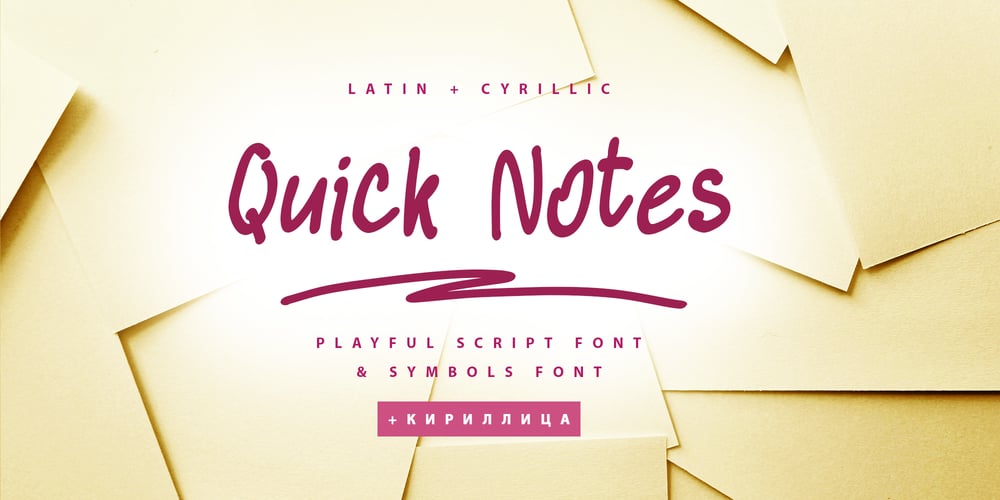
Quick Notes Cyrillic
Quick Notes Cyrillic font
Quick Notes Cyrillic Font Family was designed by Iryna Dviliuk and published by Ira Dvilyuk. Quick Notes Cyrillic contains 2 styles and family package options. Quick Notes playful script font Cyrillic is a pretty monoline font that will look gorgeous on all your designs, wedding stationery, love stories, branding materials, monoline logos, pretty teenage stickers, business and wedding cards, calligraphy Insta quotes, elegant fashion sketches, calligraphy love monograms and much more.Quick Notes playful script font contains the Cyrillic glyphs too.Quick Notes playful script font is a graceful cursive calligraphic script font, plus a Symbols font with 26 lovely hand-drawn swashes and illustrations!